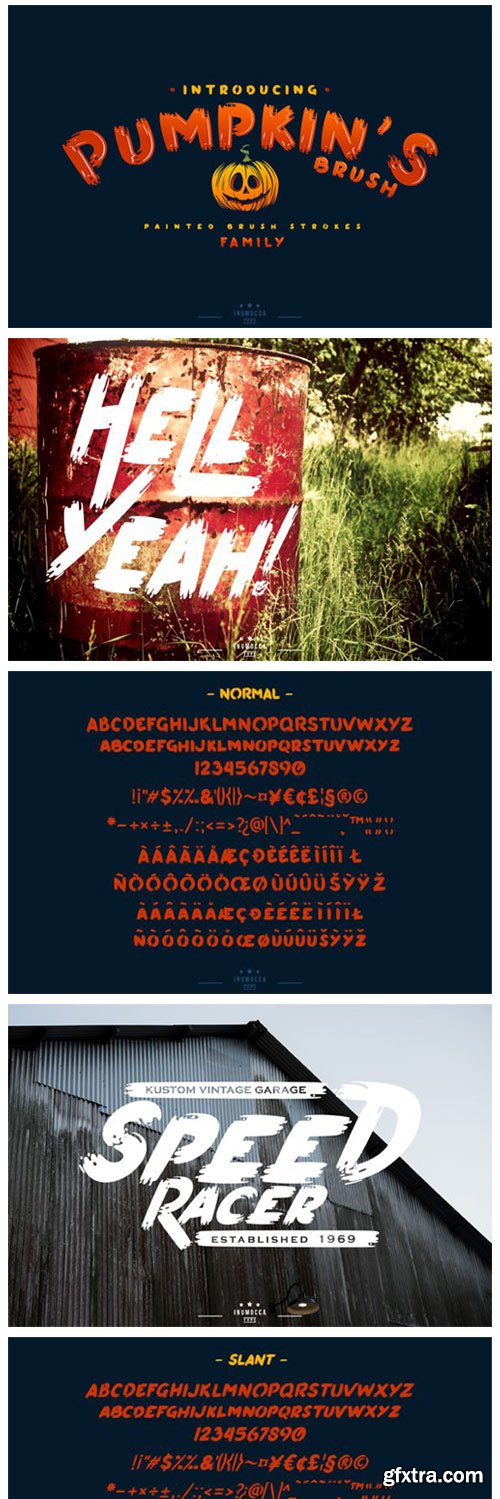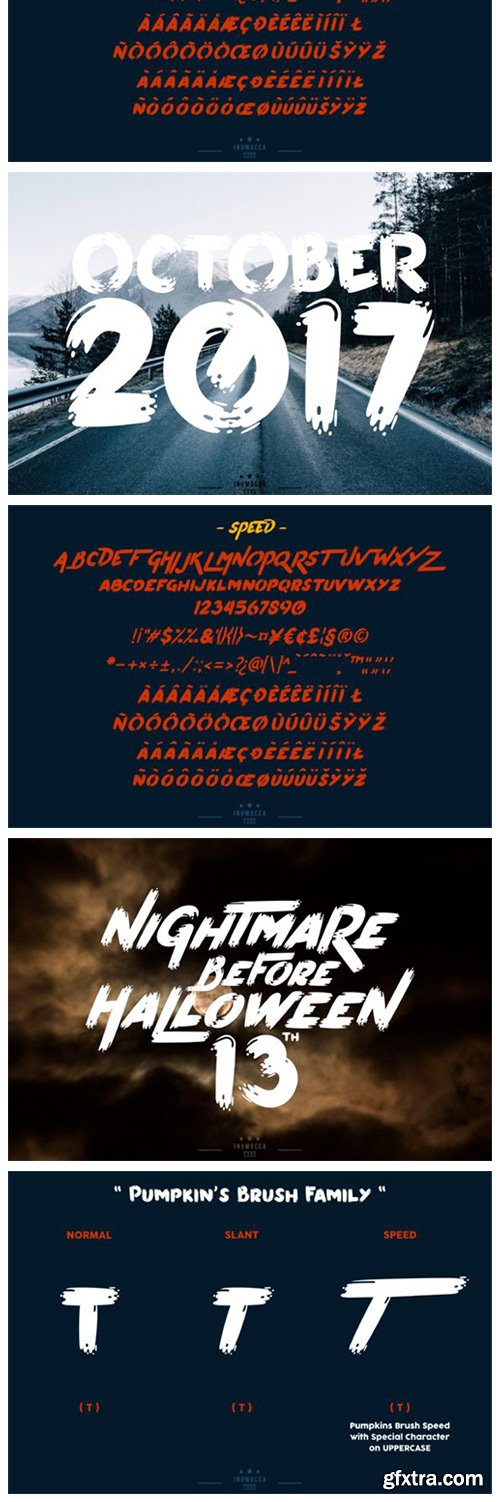
Pumpkin’s Brush Font
Pumpkin’s Brush is a fun and thick lettered display font. Friendly and cool, this font will look great on a variety of informal designs.